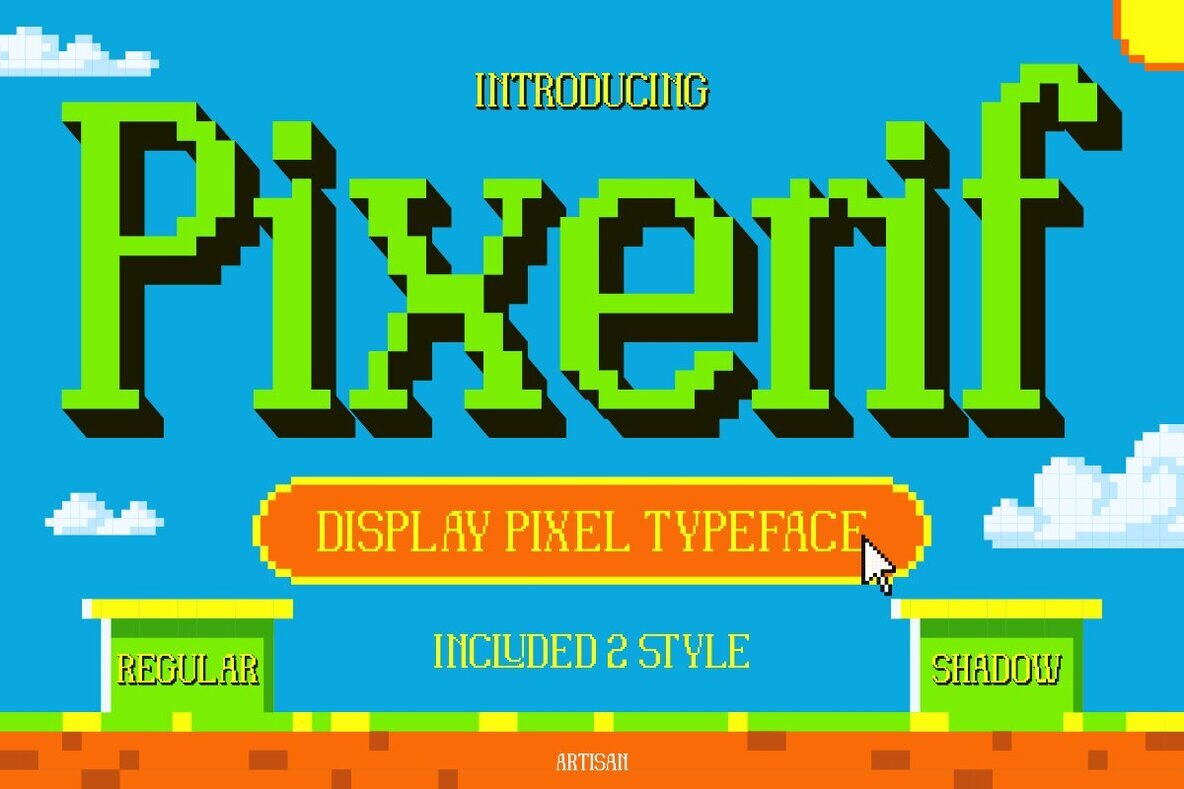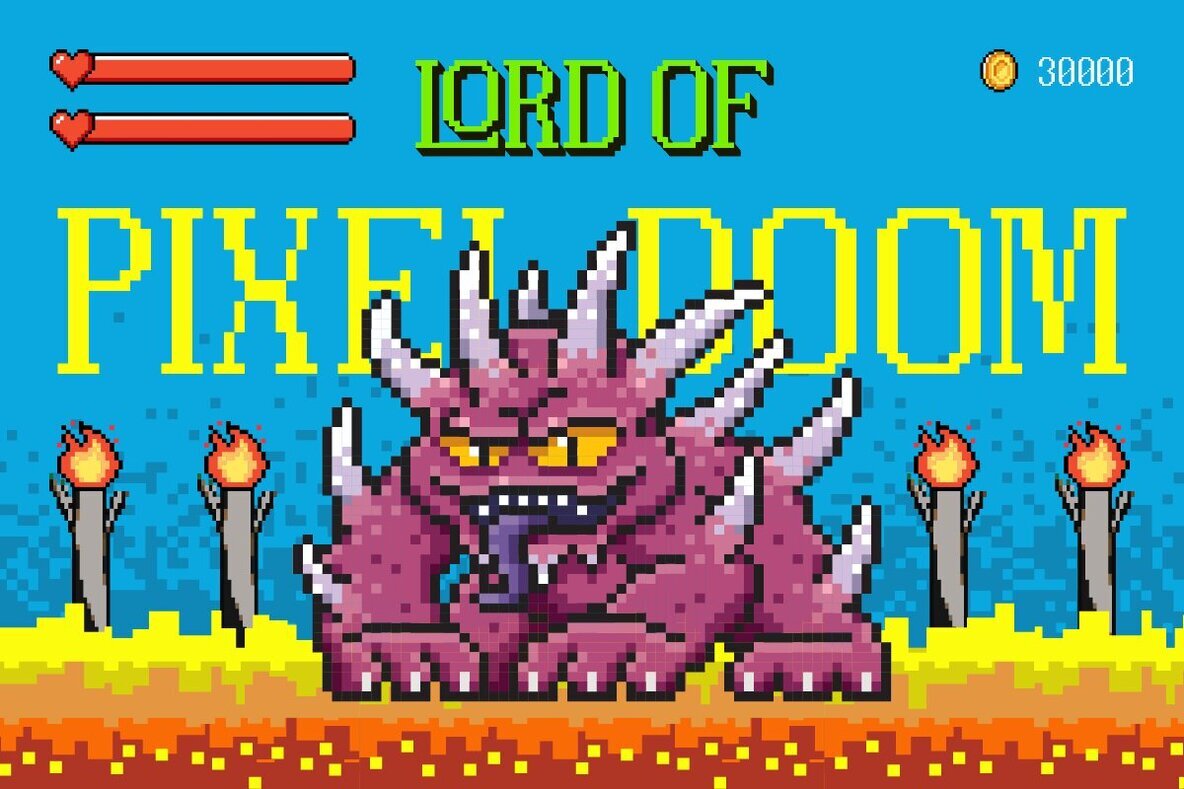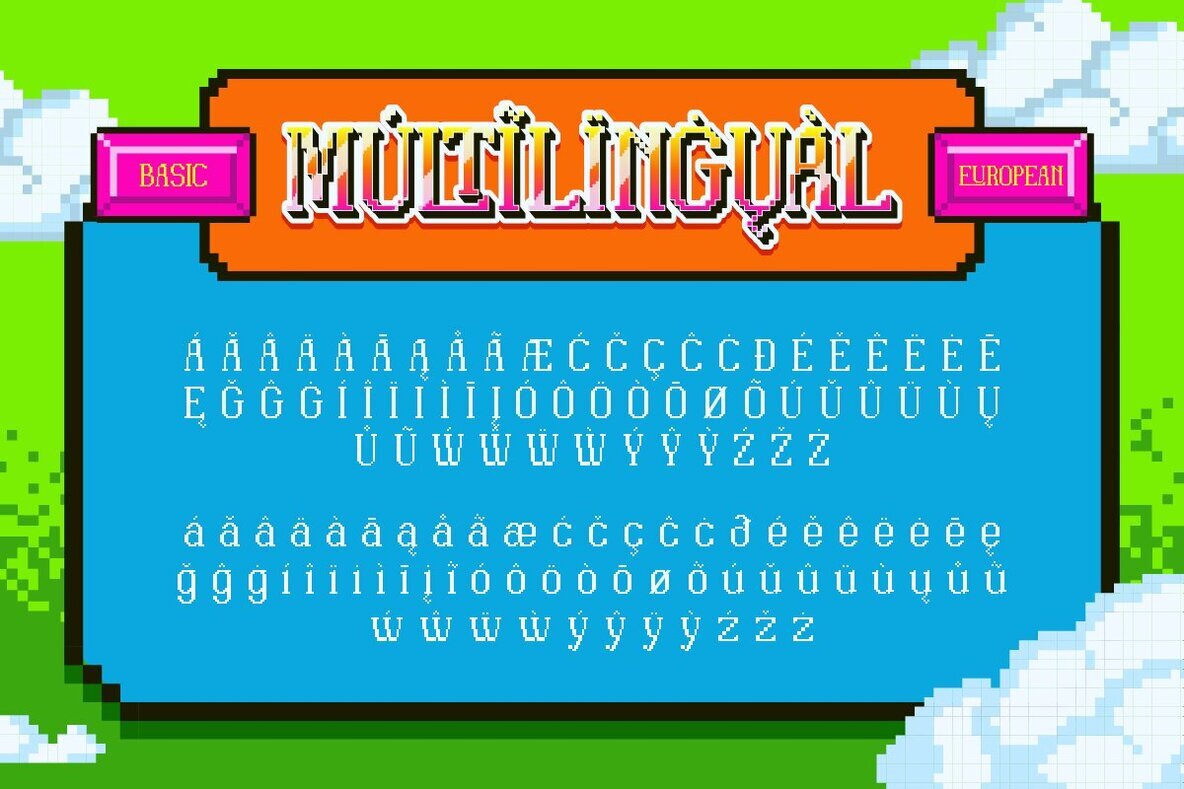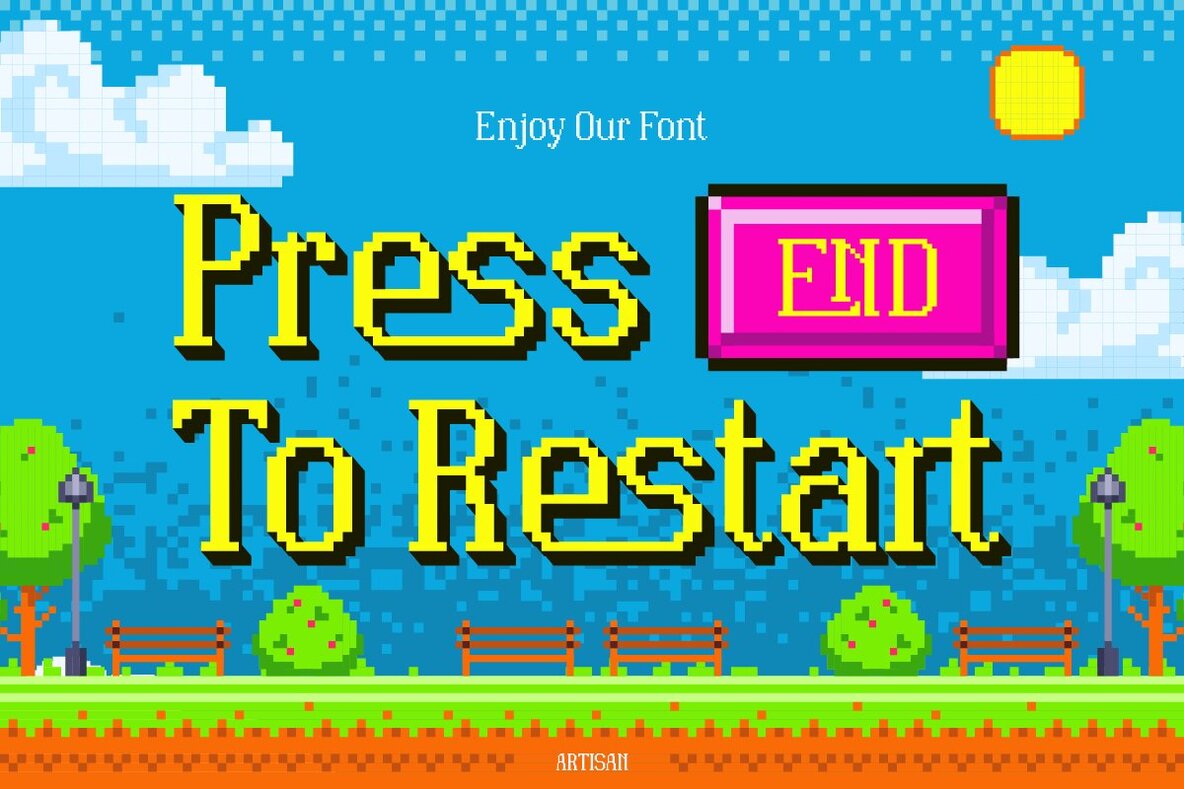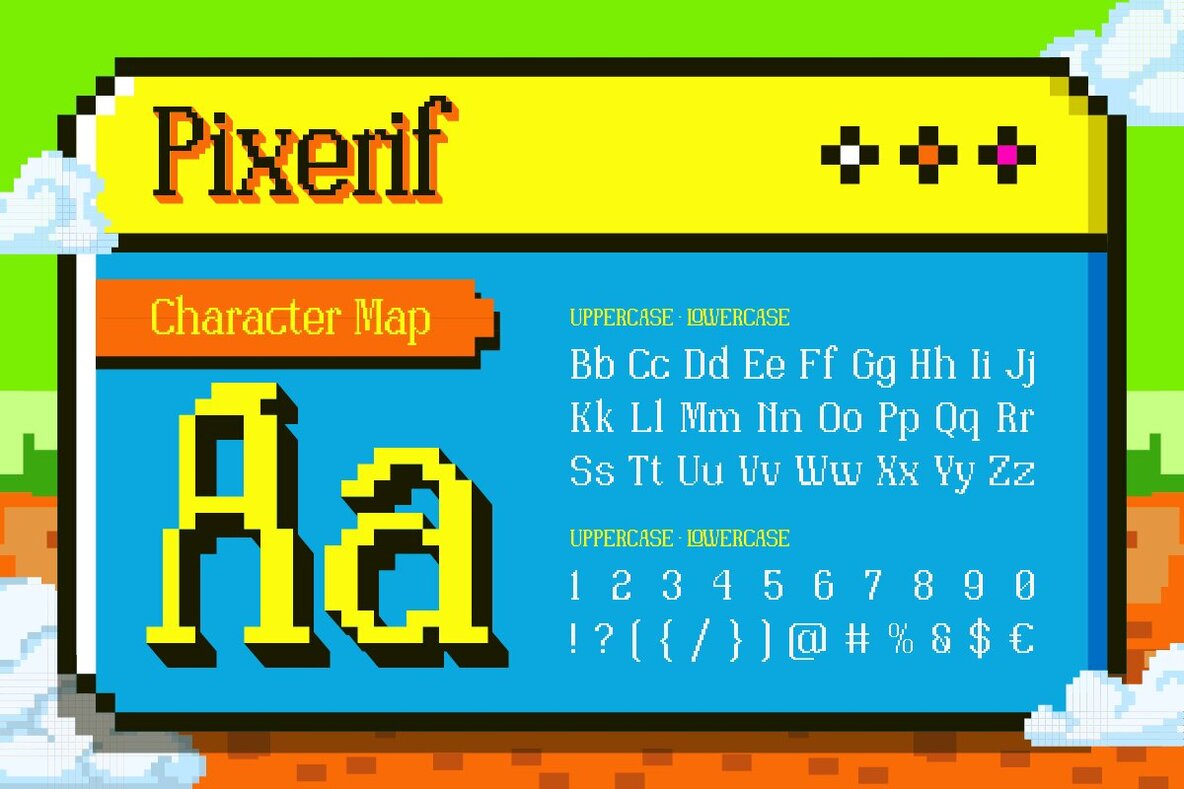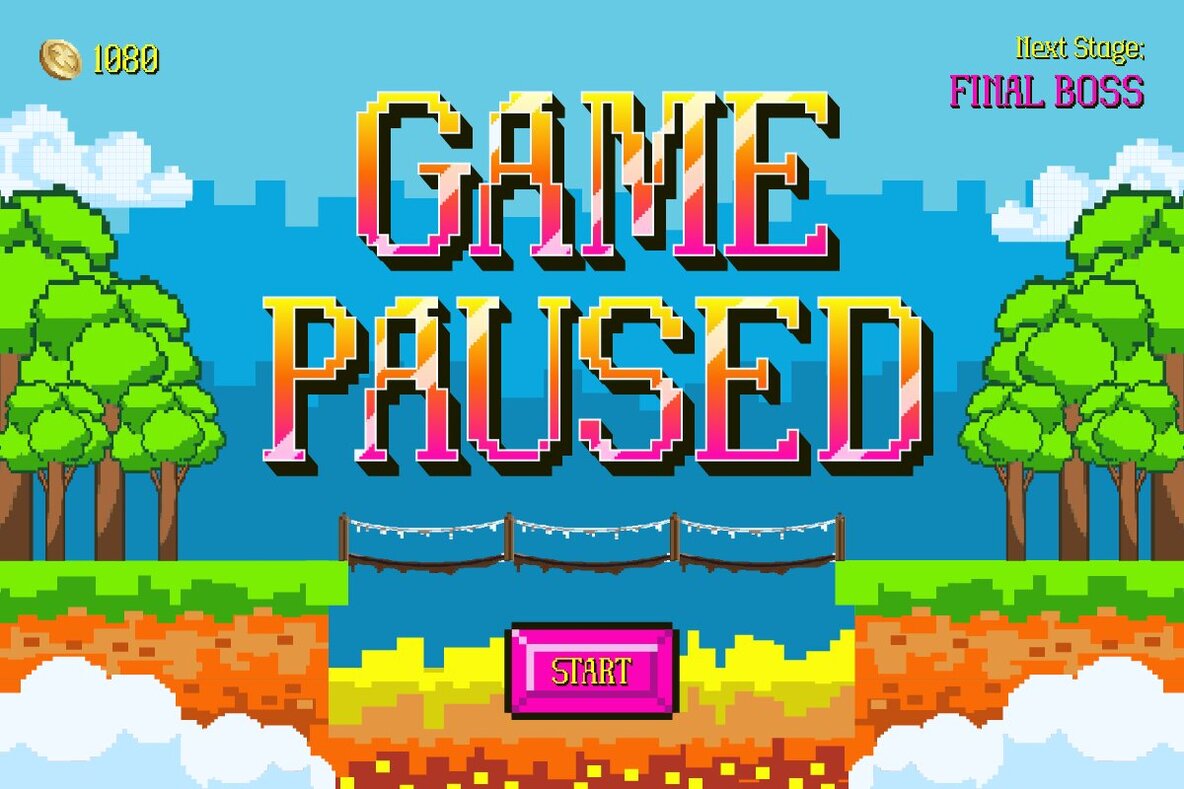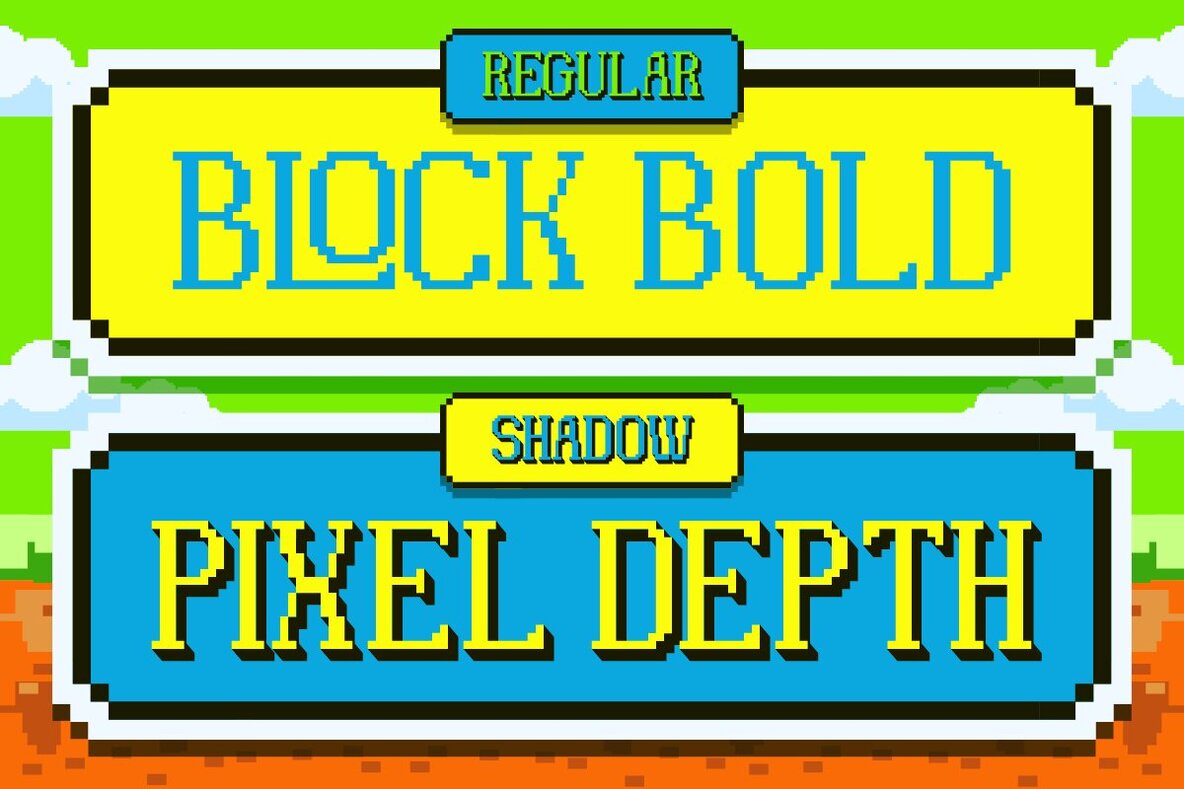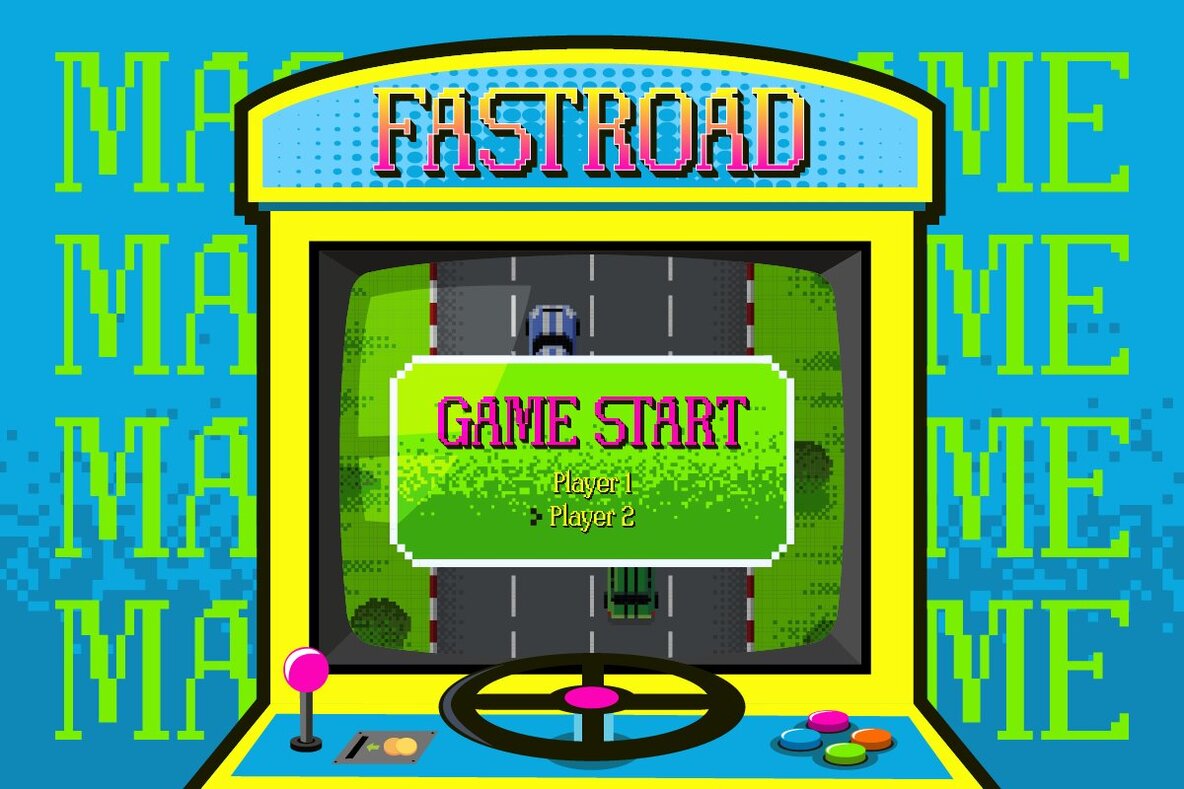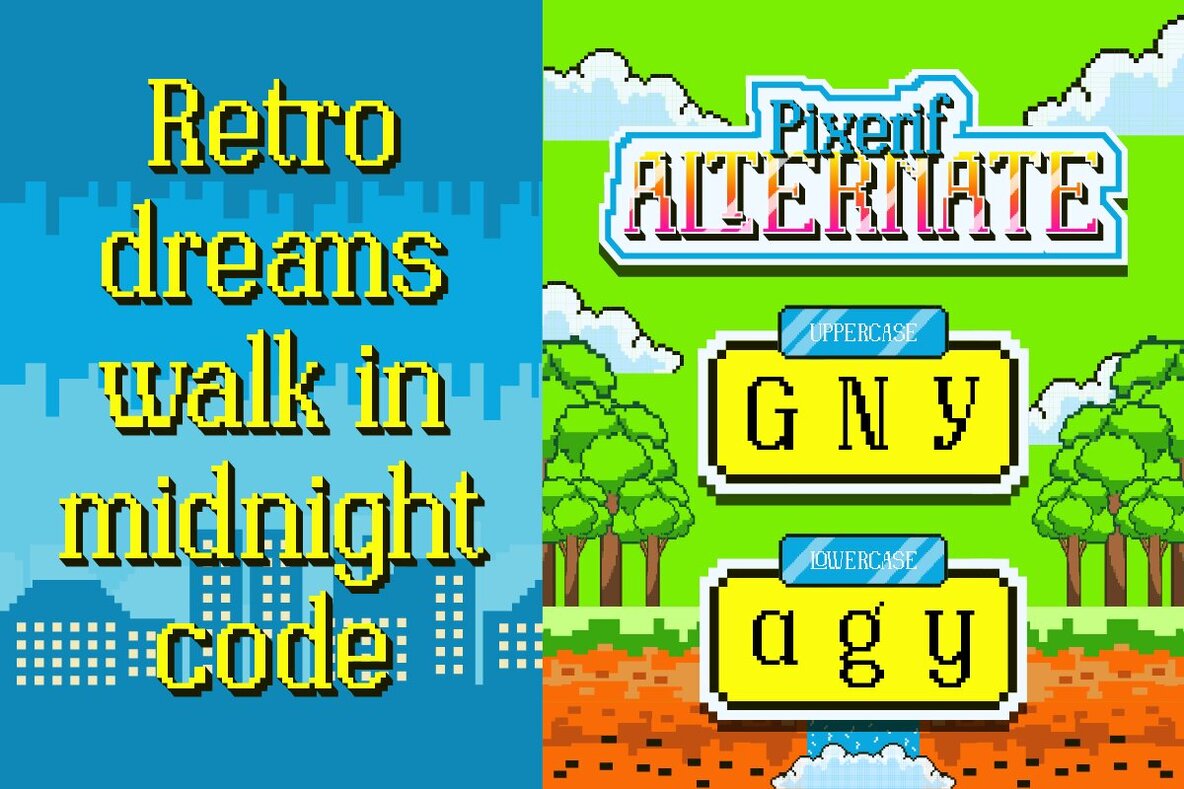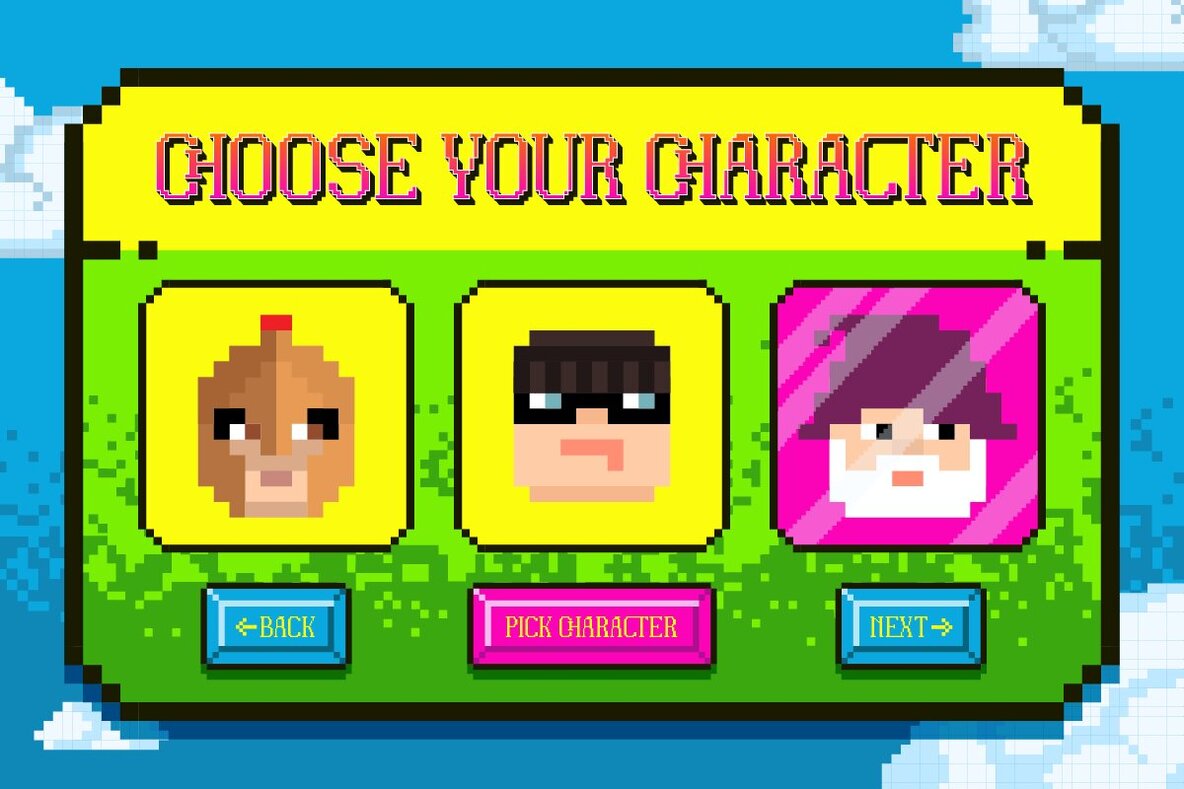
Pixerif Font
Delve into the world of classic gaming aesthetics with Pixerif, a typeface that draws its charm from iconic 8-bit game fonts. From its vibrant colors and square pixels to its crisp lines, Pixerif instills a sense of nostalgia and fun. Available in two distinct styles, Pixerif offers versatility in design. The Regular Style ensures clarity in messaging while the Shadow Style adds depth, making your text pop—ideal for logos and standout headers. Experimenting with both styles can yield creative typographic results. Features:Pixerif: Retro Game-Inspired Typography